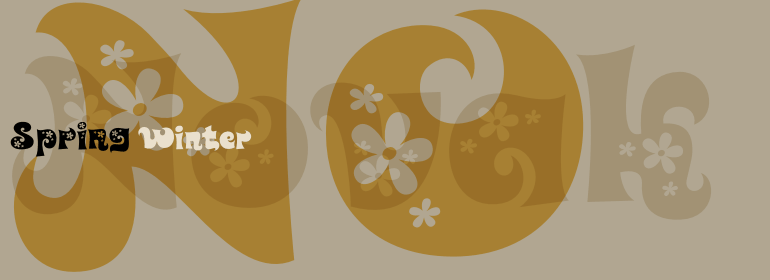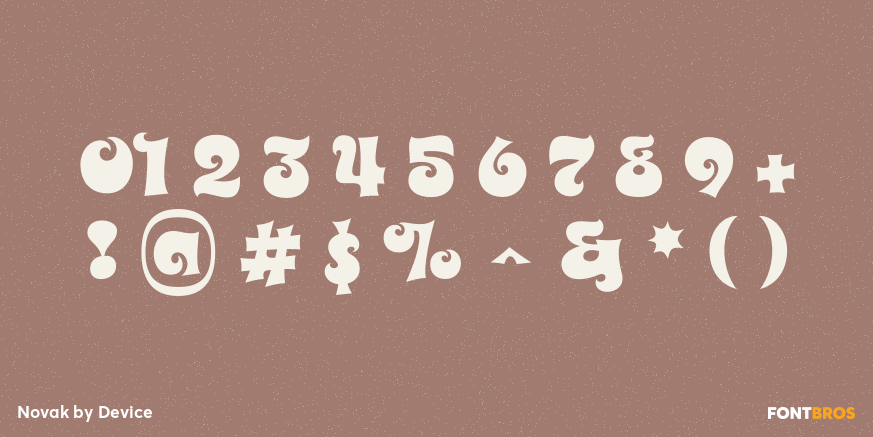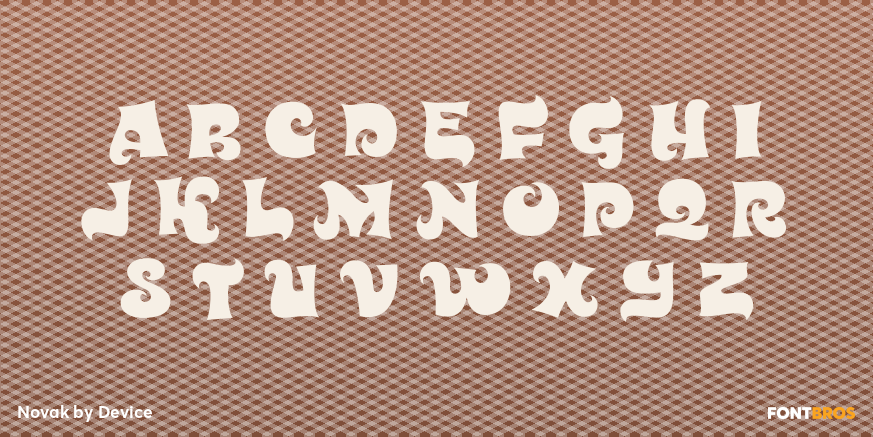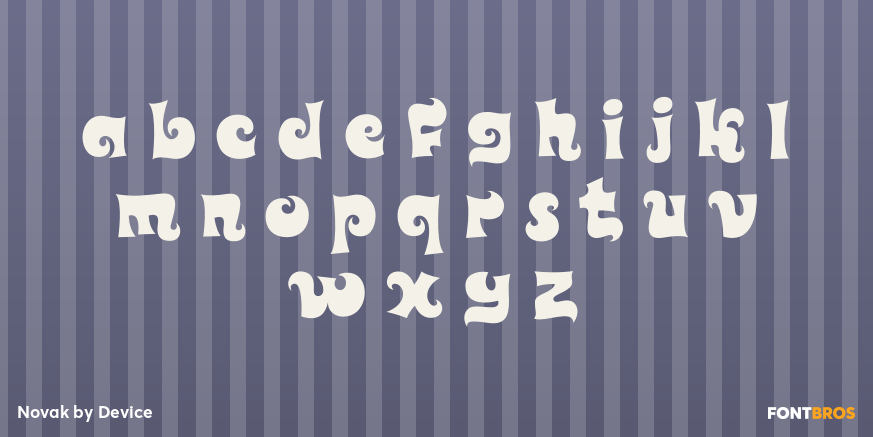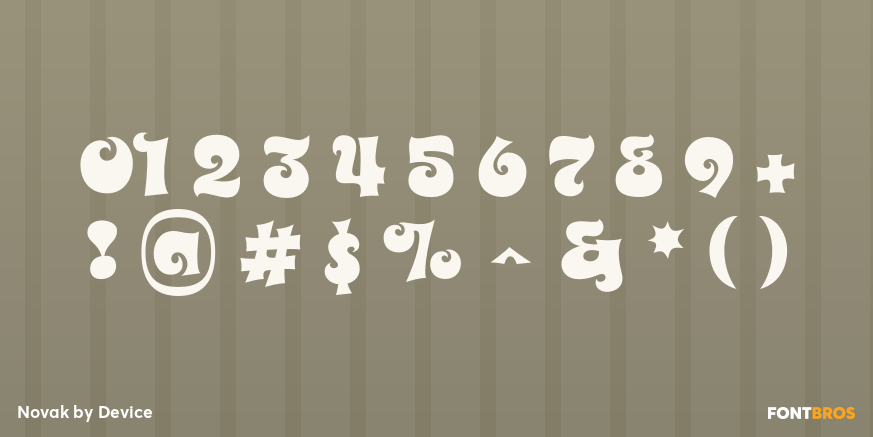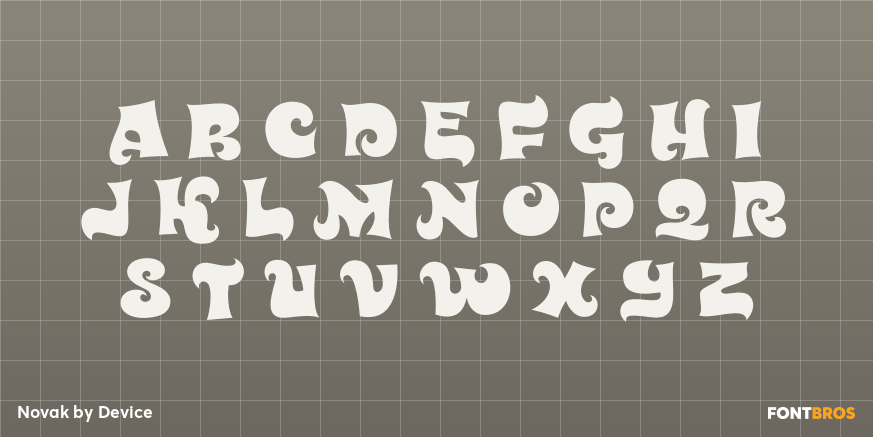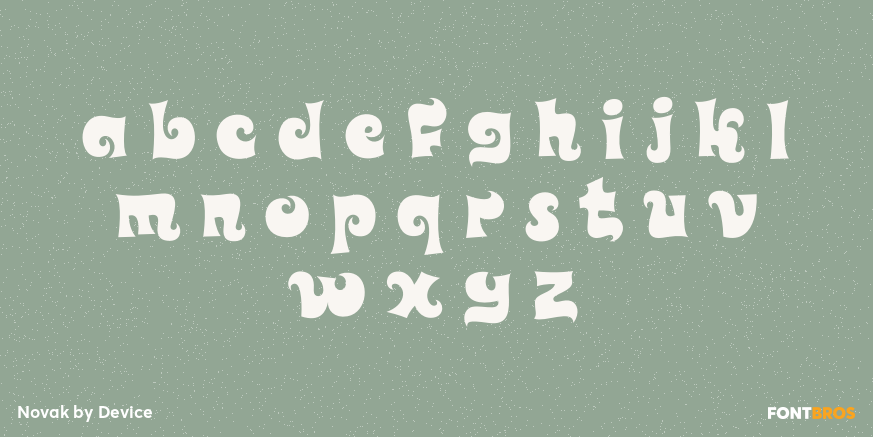
Novak
Font Family by Device
Novak is a two-style display family from Device with a playful retro attitude. Tagged with a distinctly 1960s and 1970s feel, it leans into fun, groovy, and slightly wacky letterforms that give headlines and short phrases an instant vintage spark.
The family includes Novak Winter and Novak Spring, giving you two related looks to work with across the same project. Its expressive personality makes it a strong fit for posters, branding, packaging, apparel graphics, event pieces, and other display work where you want the typography to carry mood as much as message.
If you’re after a type family with bold period character and an easygoing, offbeat charm, this one brings that colorful throwback energy without feeling overly complicated.
Novak Winter
Novak Spring